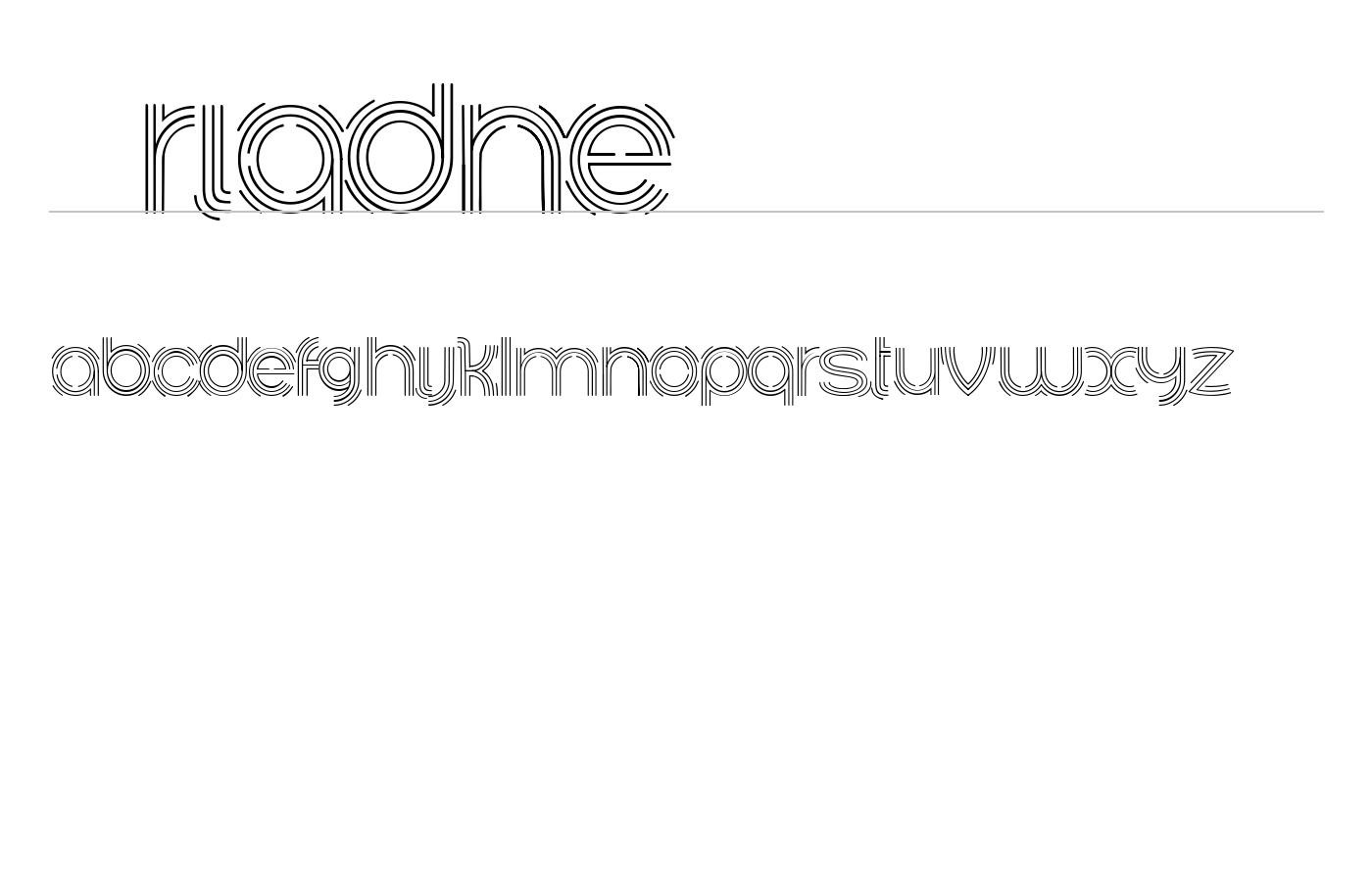
Ariadne is a stylish, modern sans serif font characterized by its unique multi-line, geometric letterforms that create a sense of depth and intricacy. Its light weight and rounded shapes give it an elegant, futuristic feel, making it perfect for contemporary logos, fashion branding, and eye-catching headlines. This font works best in large sizes where its detailed construction can be fully appreciated, adding a creative and sophisticated touch to design projects.
Ariadne Font
Designed by Arthur Tavares, Marcos Mourão, Camilla Paiva, Júnior Chaves e Eduardo Novais
About Ariadne Font
| Designer | Arthur Tavares, Marcos Mourão, Camilla Paiva, Júnior Chaves e Eduardo Novais |